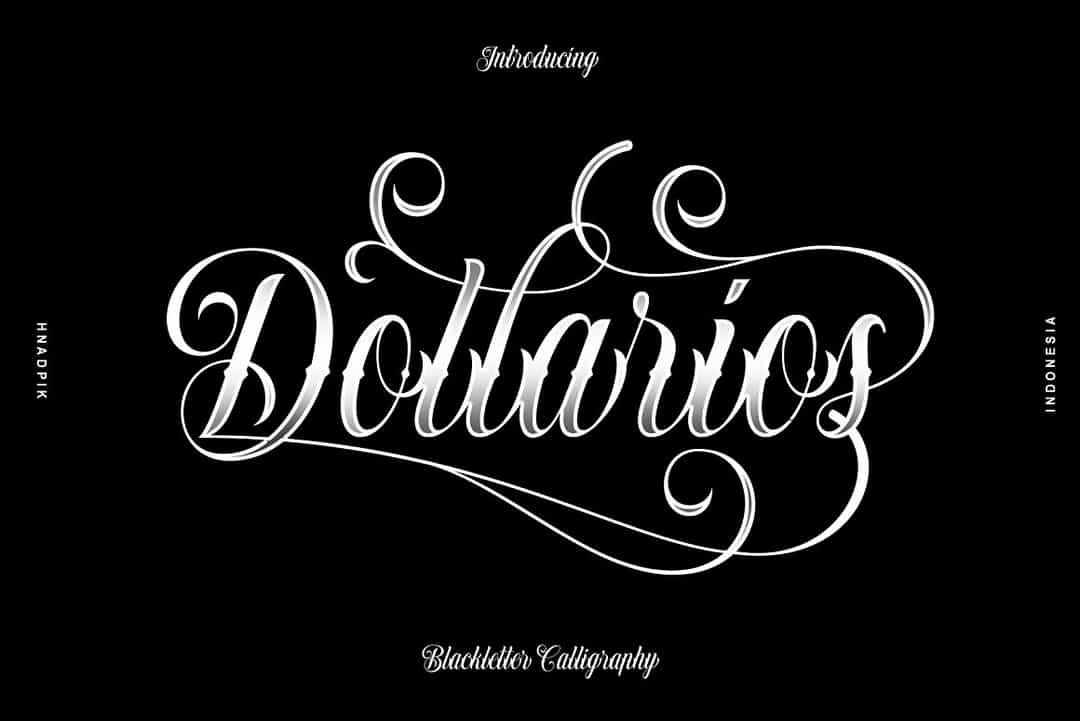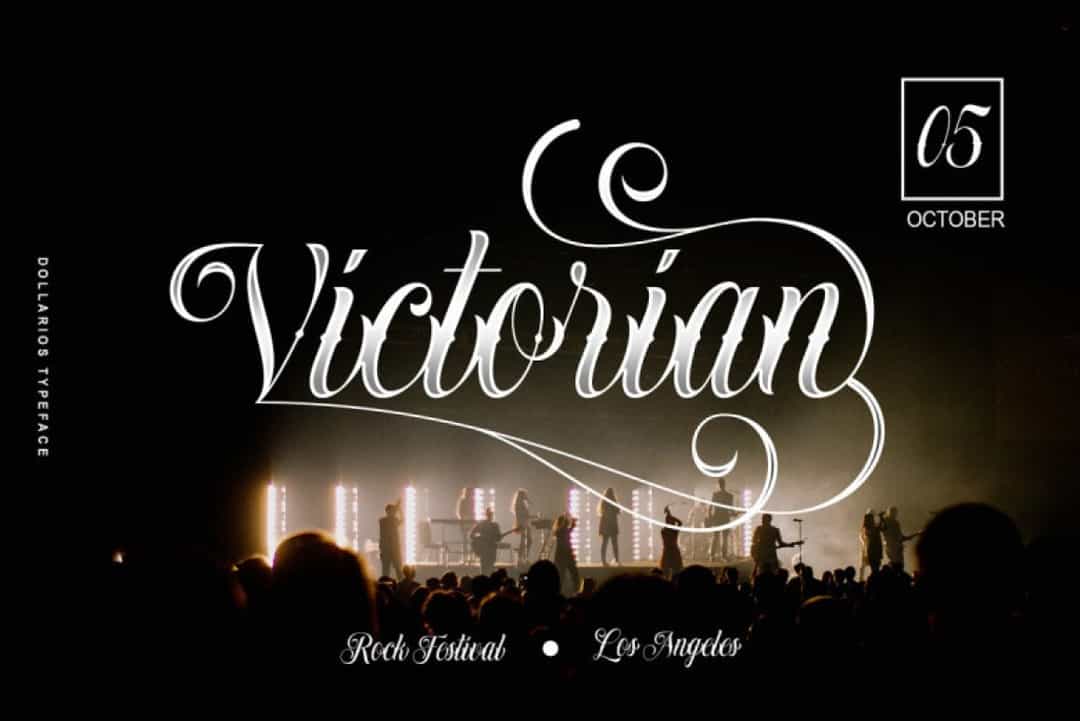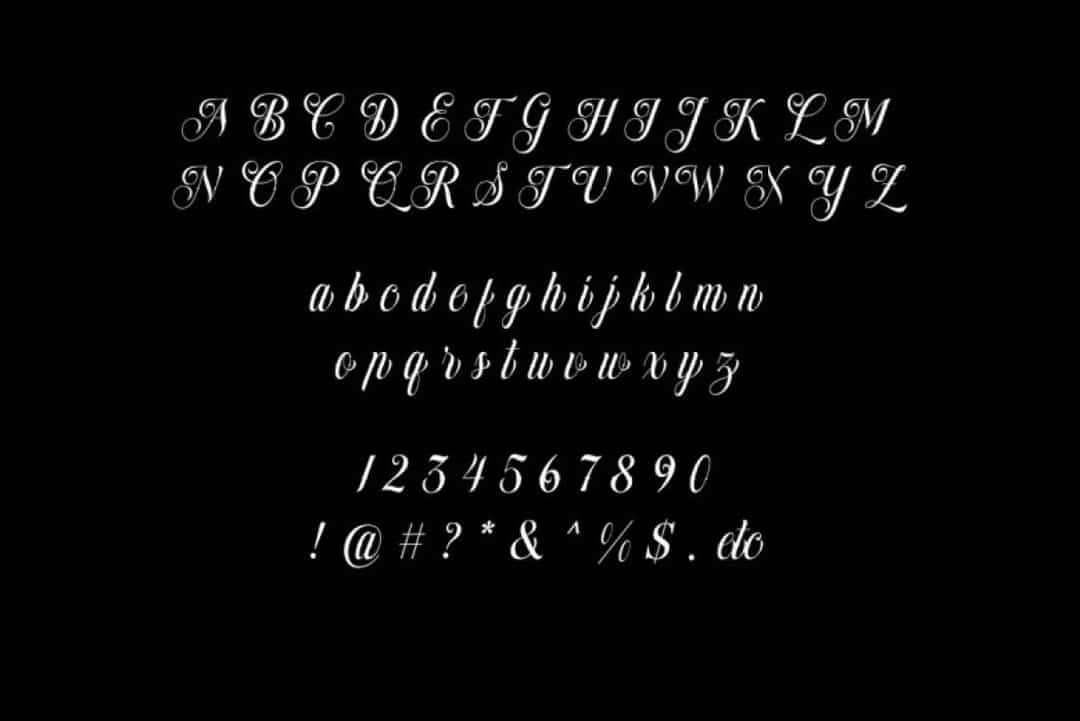
Dollarios is font boasts a contemporary blackletter calligraphy font style, making it ideal for exploring your creative potential in areas such as bands, logos posters and logos. Plus, its PUA encoded nature allows easy access to all glyphs and swashes!